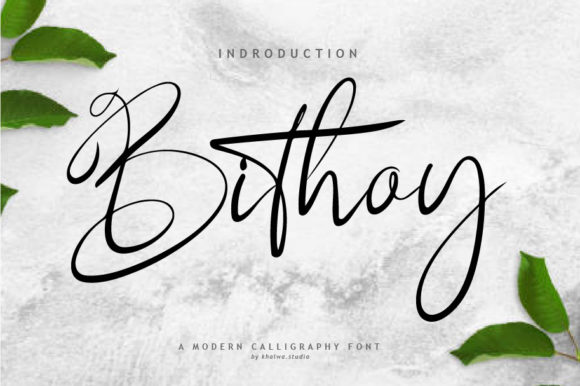
Journey into the realm of captivating calligraphy with Bithoy Script, an exquisite handwritten font that dances across the digital canvas with grace and charm. Crafted by the talented artisans at khalwa.studio, Bithoy Script is the ultimate choice for designers seeking to infuse their creations with a touch of elegance and timeless beauty.
This enchanting script font boasts a captivating repertoire of stylistic alternates, allowing you to effortlessly customize your designs and add a unique personal touch. With Bithoy Script at your fingertips, unleash your creativity and explore a world of endless possibilities.
Step into a world of flourishing beauty with Bithoy Script, the ultimate font for capturing the essence of nature's splendor. Its meticulously crafted curves and delicate flourishes evoke the gentle sway of petals in the summer breeze, making it the perfect choice for floral-inspired designs, wedding invitations, and enchanting logos that bloom with elegance.
Transport yourself to a bygone era of romance and charm with Bithoy Script. Its vintage-inspired aesthetic adds a touch of nostalgia and sophistication to your designs, making it ideal for creating memorable branding, heartfelt quotes, and enchanting social media posts that exude a timeless appeal.
With Bithoy Script, the possibilities are limitless. Its versatility extends beyond the realms of floral designs and vintage aesthetics, making it a captivating choice for a wide range of creative endeavors. Whether you're crafting eye-catching logos, designing captivating posters, or creating heartfelt greeting cards, Bithoy Script is your trusted companion in the pursuit of visual excellence.